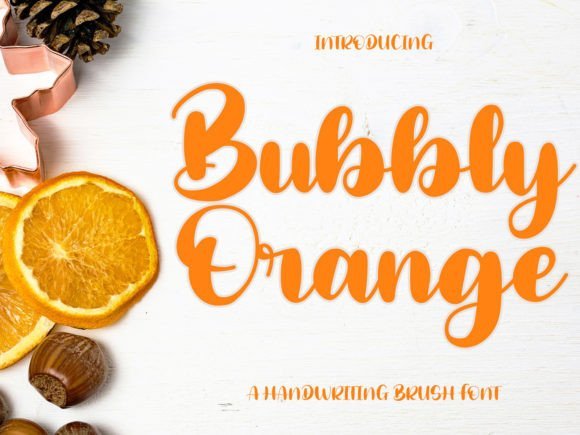
For designers looking to add a playful touch to their creations, the Bubbly Orange Font is a game-changer. This adorable handwriting brush font is perfect for adding a whimsical feel to your designs, whether you’re creating custom apparel, quotes, or backgrounds. Its bubbly, fun design is sure to bring a smile to anyone’s face, making it a valuable asset to any font library.
Bubbly Orange Font Key Features
- Font Family: Bubbly Orange Font is a unique, hand-drawn font family designed to evoke a playful and energetic feel.
- Character Set: Includes a wide range of characters, including uppercase and lowercase letters, numbers, and punctuation marks, making it suitable for various text-based applications.
- Unique Characteristics: Features a distinctive, bubbly design with rounded shapes and soft lines, giving it a friendly and approachable feel.
Bubbly Orange Font Review
I recently had the chance to work with the Bubbly Orange Font, and I must say it’s a unique and attention-grabbing addition to any design project. ✨ Here are some of its strengths:
- Highly legible even at smaller font sizes, making it perfect for body text and headings.
- Comes with a range of weights and styles, allowing for versatility in design applications.
- The orange hue is energetic and playful, perfect for creating a lively and approachable atmosphere.
- Works well in digital and print formats.
- The font may not be suitable for formal or professional projects, as the playful tone may not be taken seriously.
- The orange color may be overwhelming in large quantities, so it’s essential to balance it with neutral elements.
- Some users may find the font’s irregularities too distracting, which can affect readability.
Overall, I think Bubbly Orange Font is a great choice for designers looking to add some personality to their projects. With its unique characteristics and wide range of applications, it’s definitely worth considering. Just be mindful of its limitations and use it thoughtfully to achieve the desired effect.
The Bubbly Orange Font is perfect for:
Creating eye-catching headlines and titles
Designing festive and playful graphics
Adding a touch of whimsy to social media posts and ads
Enhancing the look of event invitations and promotional materials